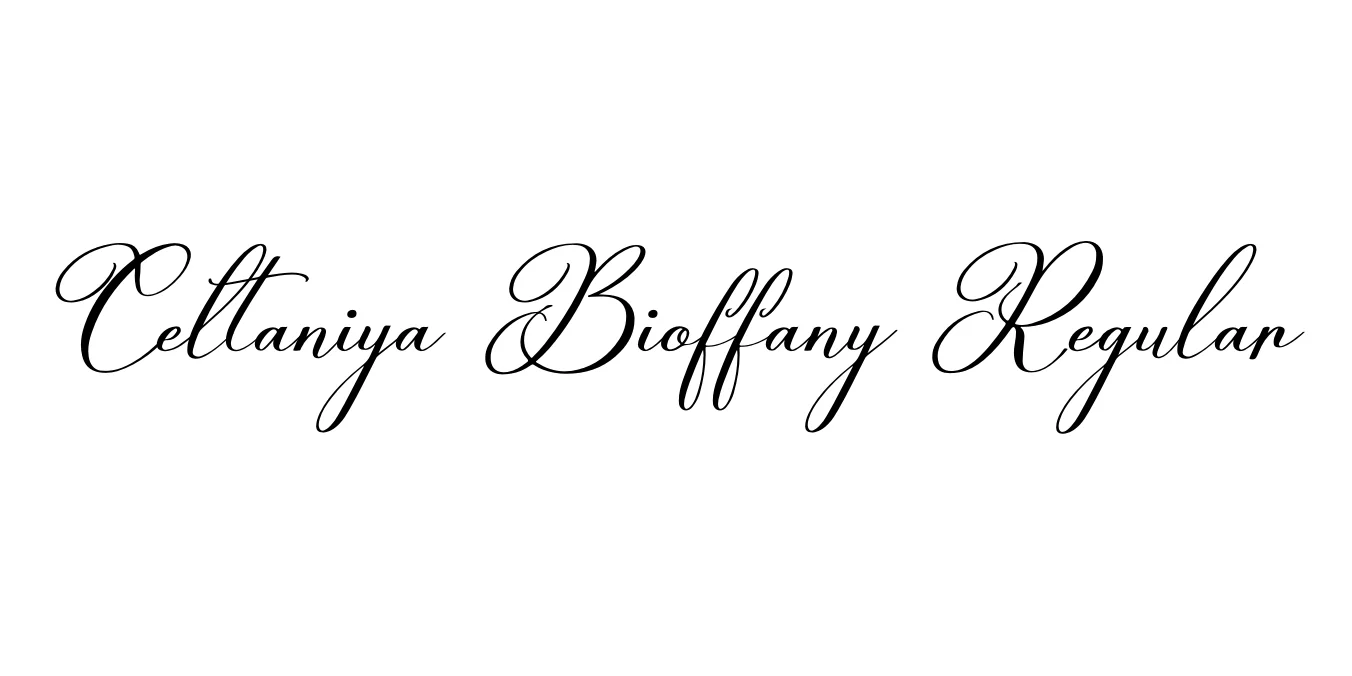
Celtaniya Bioffany Regular
Designed by Rantautype
| Category | Calligraphic Script |
| Designer | Rantautype |
Celtaniya Bioffany Regular emerges from the contemporary calligraphic movement, designed to bridge the gap between traditional copperplate script and modern digital elegance. Developed by Rantautype, this typeface reflects a fusion of rhythmic handwriting and structured formal flourishes. Its origin lies in the desire for a sophisticated signature-style font that maintains the fluid connectivity of hand-inked letters while adhering to the technical constraints of modern OpenType features.
Technically, the font exhibits a high contrast in stroke weight, transitioning from hairline upstrokes to deliberate, pressurized downstrokes. The x-height is moderately tall for a script face, ensuring that loops and counters remain legible even at smaller display sizes. Its kerning is meticulously balanced to prevent character collisions during ligatures. The terminal endings are soft and rounded, contributing to a warm, inviting aesthetic that balances decorative flair with functional readability in branding contexts.
Celtaniya Bioffany Regular Best Uses
Ideal for luxury logos and signature-style identity design.
Perfect for high-end stationery and romantic event titling.
Adds a premium feel to cosmetics and boutique product labels.